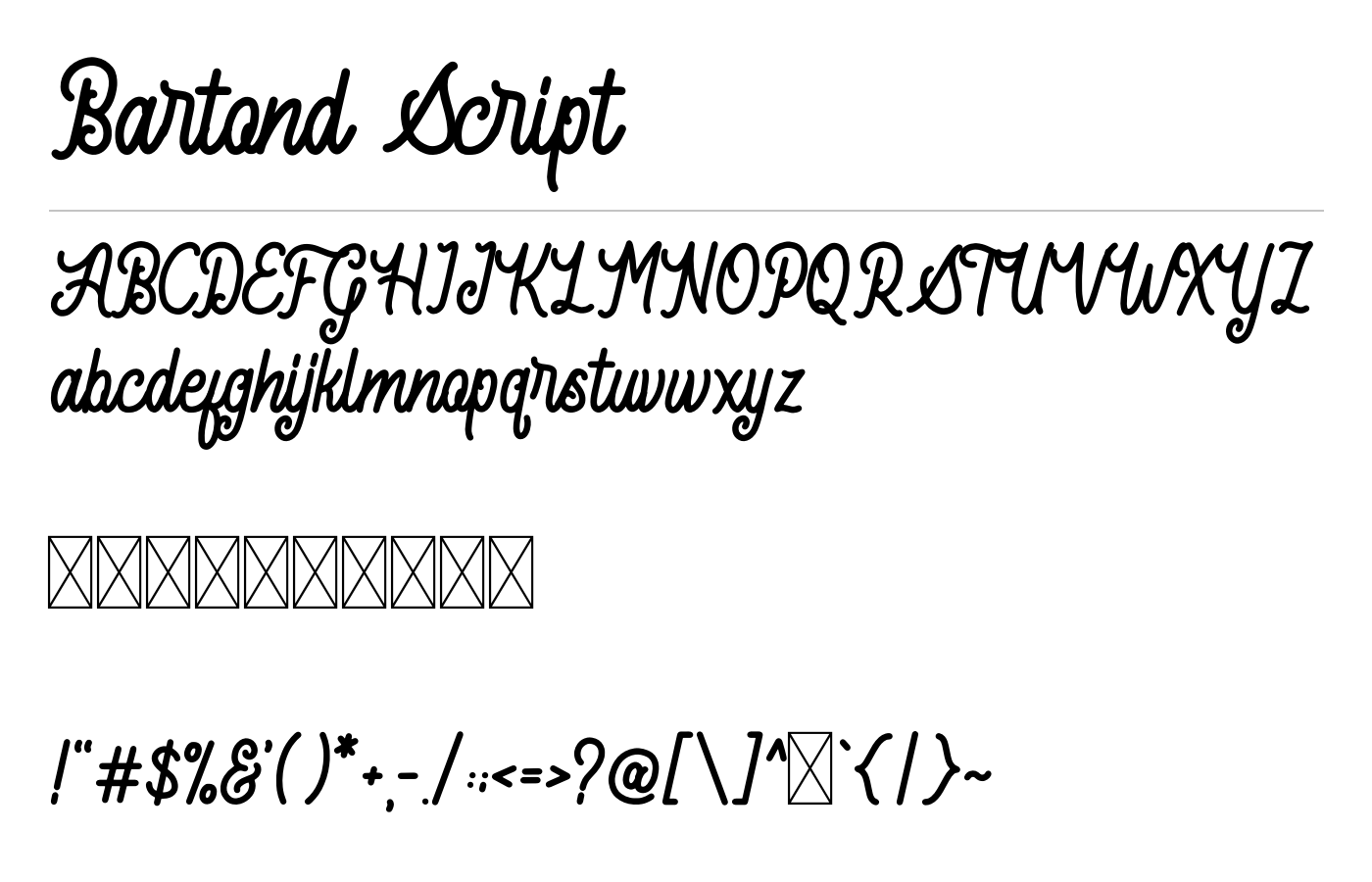
Bartond Script is a lively and playful script font characterized by its thin, smooth strokes and charmingly rounded letterforms. Its casual, handwritten style with looping uppercase letters and neat lowercase shapes makes it perfect for creative, fun, and approachable designs. This font works well for logos, invitations, and branding that seeks a friendly and personal touch.
Bartond Script Font